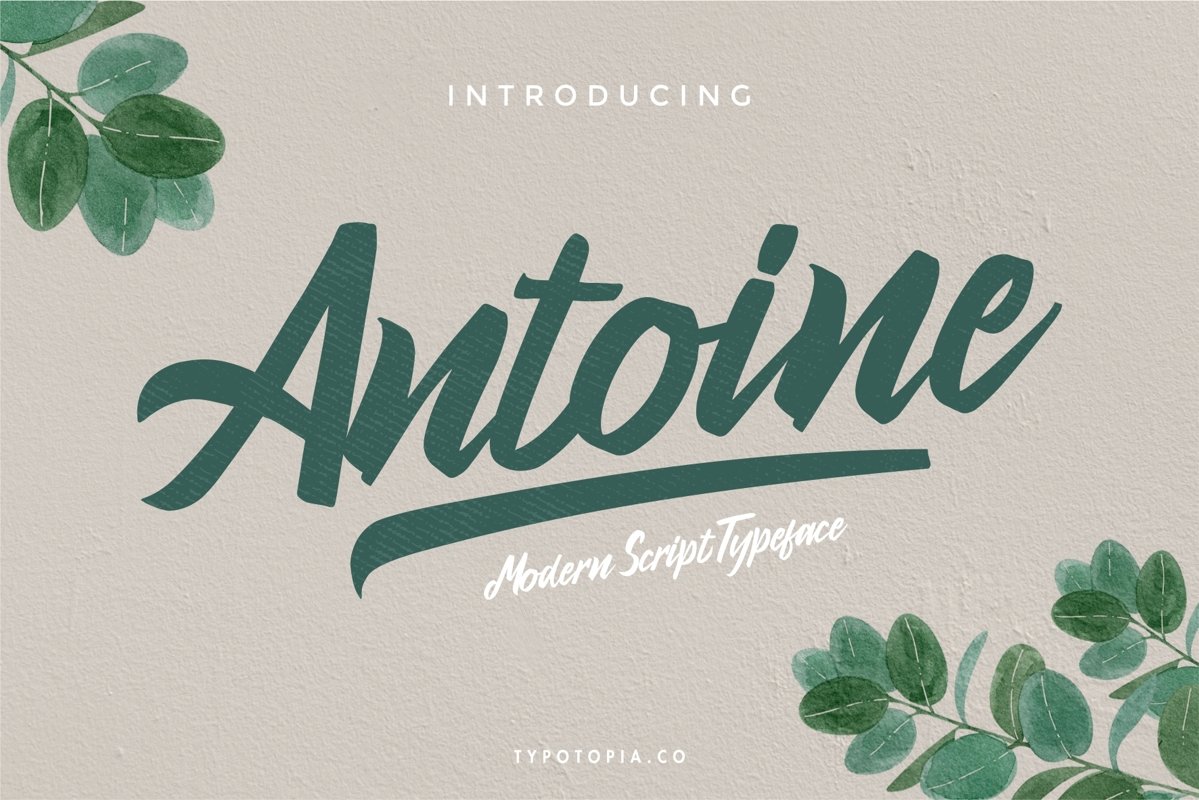
Antoine
Typotopia Proudly Present Antoine The Handmade Script Font. This Fonts Comes is a bold connected script font with a clear style and dramatic movement. Every single letters have been carefully crafted to make your designs looks better.
Antoine Font is the great choice for several purpose, such as watermark, logo, business card design, quotes, album cover, invitation letter, stationery, and many other design project that need handwriting taste.
Antoine also Support Multilingual Feature for Foreign Language, here’s the list : áäåãéèëìïîòöôøùüAÀÁÂÃÄÅEÈÉÊËIÌÍÎÏNÑOÒÓÔÕÖUÙÜÚÛYÝŸ?Ÿ
• Uppercase & Lowercase letters
• Numbering and Punctuations